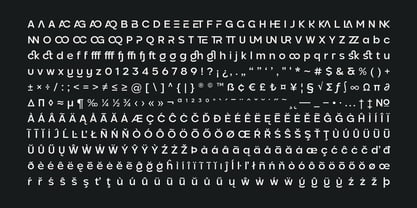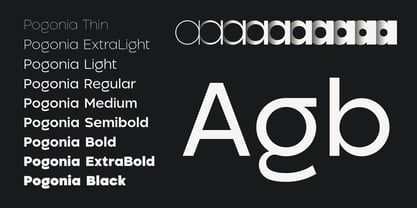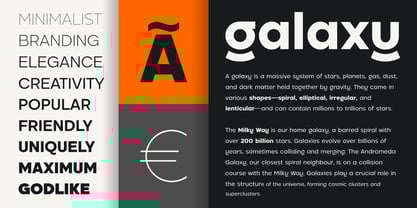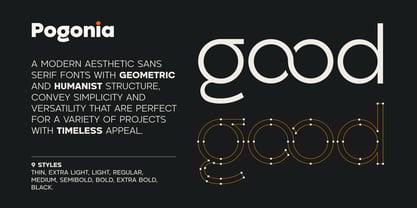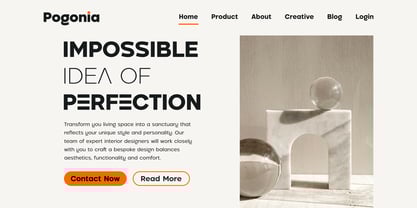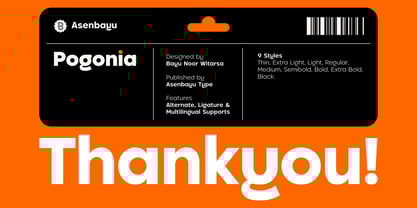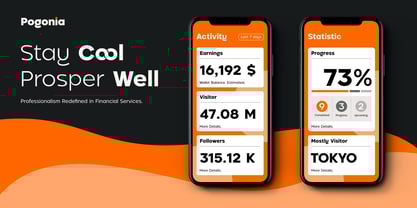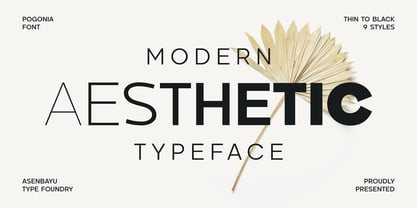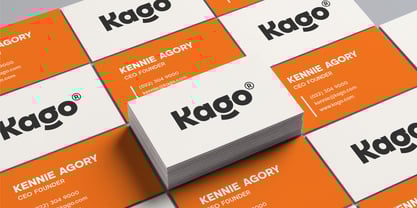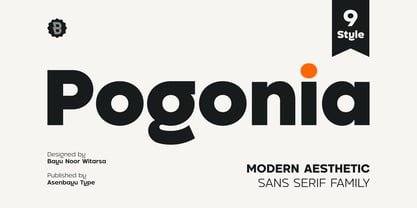
Pogonia
by Asenbayu
The Pogonia Font Family was designed by Bayu Noor Witarsa and published by Asenbayu. Pogonia contains 9 styles and family package options.
Pogonia is a modern aesthetic sans serif fonts with geometric and humanist structure, convey simplicity and versatility that are perfect for a variety of projects with timeless appeal. Use it to convey desired logo designs, attractive posters, social media designs, fashion and websites.
Pogonia font features: 9 Fonts (thin to black), Standard glyph, Stylistic Alternates, Stylistic Ligatures, Symbol, Punctuation and Multiple Languages Supported.
Designers: Bayu Noor Witarsa
Publisher: Asenbayu
Foundry: Asenbayu
Design Owner: Asenbayu